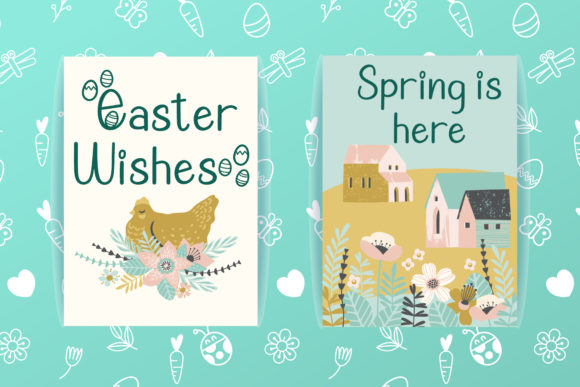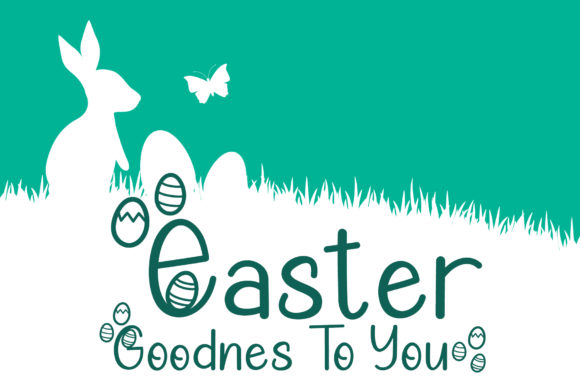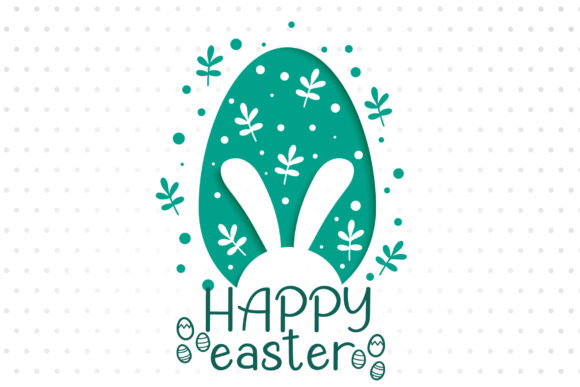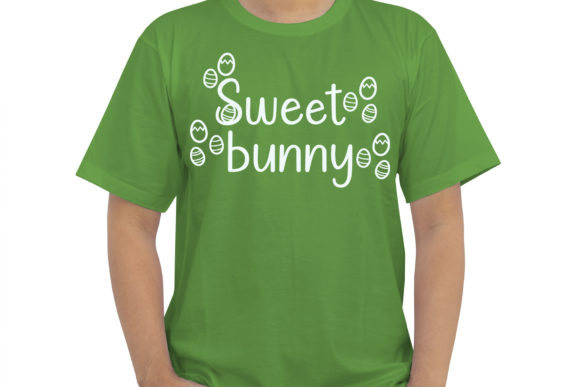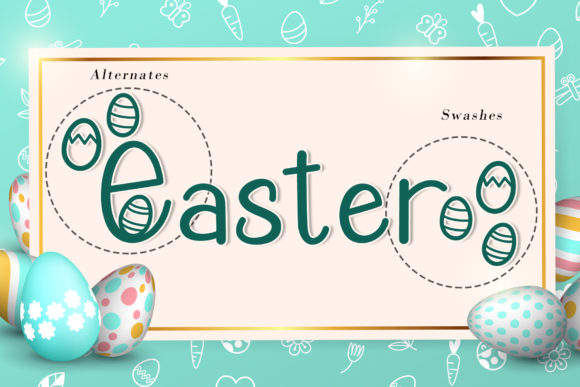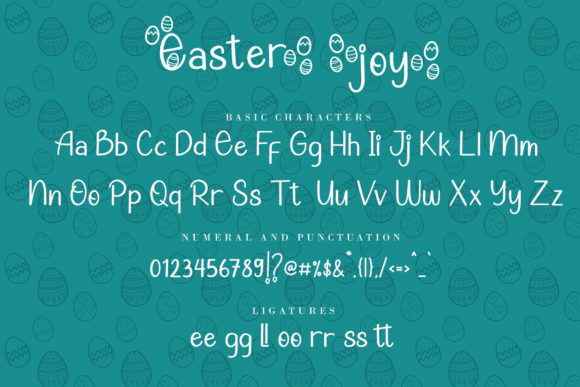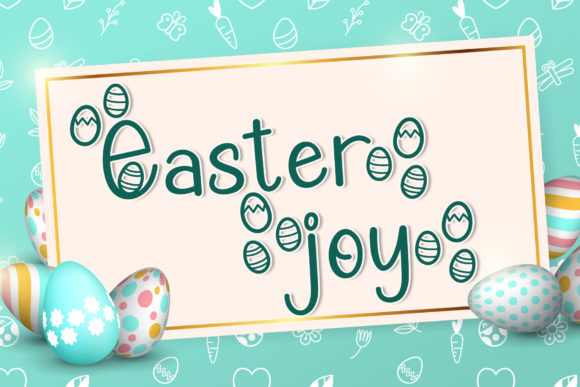
Easter Joy Font: Add a Touch of Whimsy to Your Easter Designs
Are you looking for a unique and quirky font to add some Easter cheer to your designs? Look no further than the Easter Joy Font! This delightful display font features one-of-a-kind ornaments that are sure to make your Easter-themed designs, cards, and branding stand out. In this article, we’ll dive into the world of Easter Joy Font and explore its features, uses, and benefits for designers and crafters.
What is Easter Joy Font?
Easter Joy Font is a display font designed specifically for Easter-themed designs. Its quirky and playful style makes it perfect for adding a touch of whimsy to your projects. The font features unique ornaments that are sure to catch the eye and add a festive feel to your designs.
Key Features of Easter Joy Font
- Unique Ornaments: Easter Joy Font features one-of-a-kind ornaments that are sure to make your designs stand out.
- Quirky Display Font: The font has a playful and quirky style that’s perfect for Easter-themed designs.
- Versatile: Easter Joy Font can be used for a variety of projects, including Easter-themed designs, cards, branding, stationery, blog design, custom art, and more.
Uses for Easter Joy Font
Easter Joy Font is a versatile font that can be used for a variety of projects, including:
- Easter-themed Designs: Use Easter Joy Font to create festive Easter-themed designs, such as posters, flyers, and social media graphics.
- Easter Cards: Add a personal touch to your Easter cards with Easter Joy Font.
- Branding: Use Easter Joy Font to create unique and eye-catching branding for your Easter-themed products or services.
- Stationery: Add a touch of whimsy to your stationery with Easter Joy Font.
- Blog Design: Use Easter Joy Font to create festive and eye-catching blog designs for Easter.
- Custom Art: Use Easter Joy Font to create unique and personalized custom art for Easter.
Easter Joy Font offers a range of benefits for designers and crafters, including:
- Unique and Eye-Catching Designs: Easter Joy Font allows designers and crafters to create unique and eye-catching designs that are sure to stand out.
- Time-Saving: The font is easy to use and saves designers and crafters time and effort in creating Easter-themed designs.
- Versatility: Easter Joy Font can be used for a variety of projects, making it a valuable addition to any designer’s or crafter’s toolkit.
- Festive and Fun: Easter Joy Font adds a festive and fun touch to designs, making it perfect for Easter-themed projects.
Tips for Using Easter Joy Font
Here are some tips for using Easter Joy Font:
- Experiment with Different Sizes: Easter Joy Font looks great in a variety of sizes, so experiment with different sizes to find the one that works best for your project.
- Pair with Other Fonts: Pair Easter Joy Font with other fonts to create a unique and eye-catching design.
- Use for Headings and Titles: Easter Joy Font is perfect for headings and titles, adding a touch of whimsy and festivity to your designs.
Easter Joy Font is a unique and quirky display font that’s perfect for adding a touch of Easter cheer to your designs. With its one-of-a-kind ornaments and versatile style, it’s sure to make your Easter-themed designs, cards, and branding stand out. Whether you’re a designer or crafter, Easter Joy Font is a valuable addition to your toolkit. So why not give it a try and add some Easter joy to your designs?